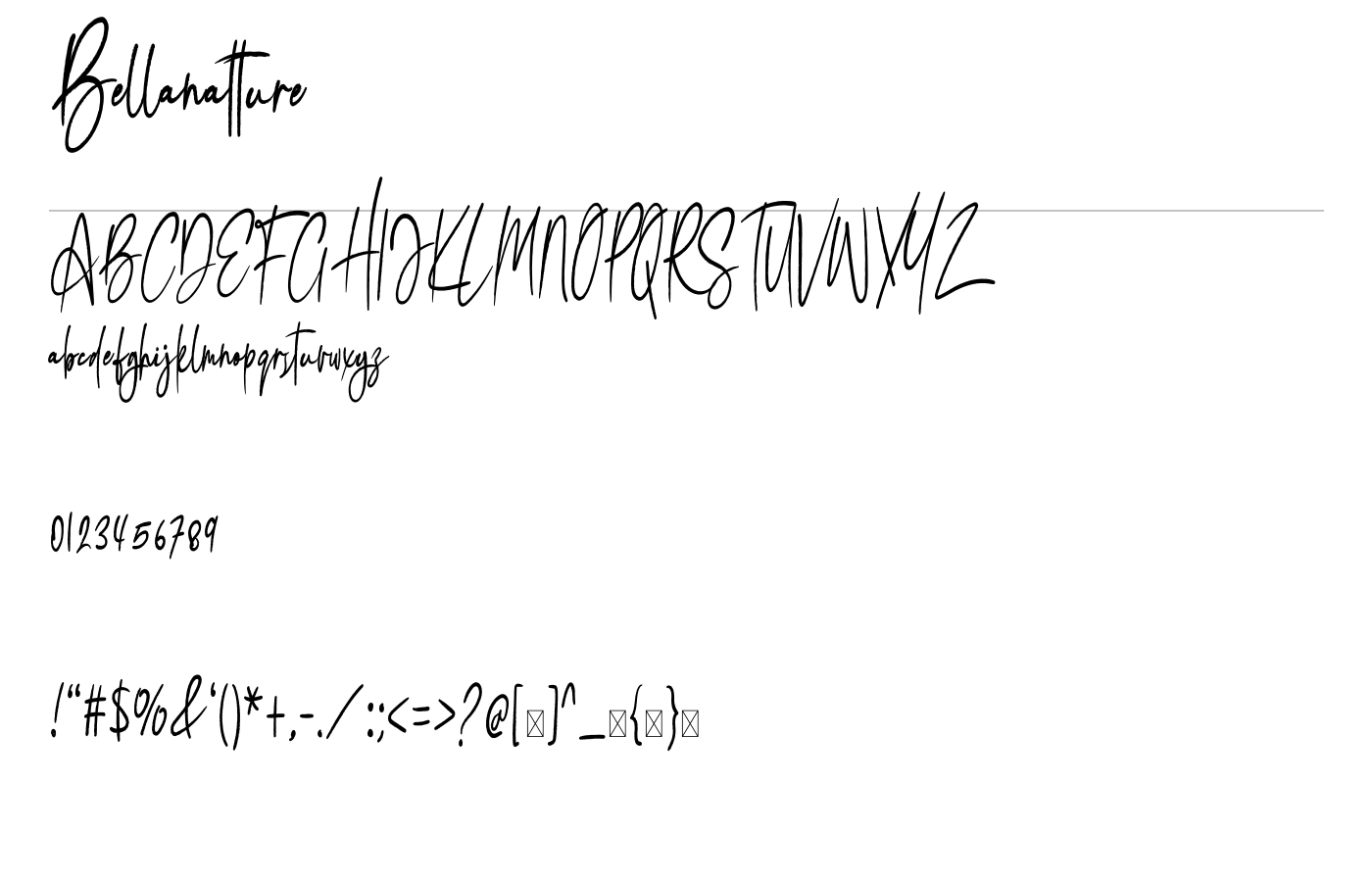
Bellanatture is a stylish, handwritten script font featuring tall, slender letterforms with a lively and organic flow. Its casual, slightly irregular strokes give it a personal, artistic touch perfect for creative branding, invitations, and modern editorial projects. This font brings a fresh, expressive vibe that works well for designs seeking an authentic and elegant handwritten feel.
Bellanatture Font
About Bellanatture Font